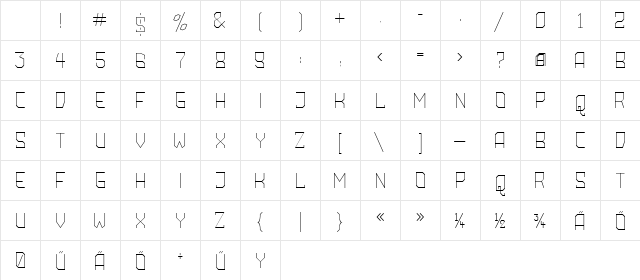
Amboss is a composed and adaptable typeface that performs quietly and consistently across a wide range of design contexts. Its slender proportions lend an understated elegance to any composition.